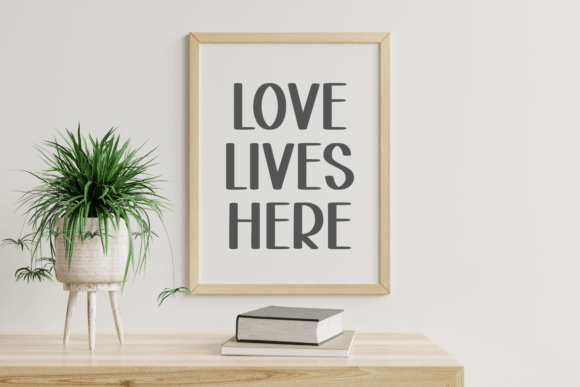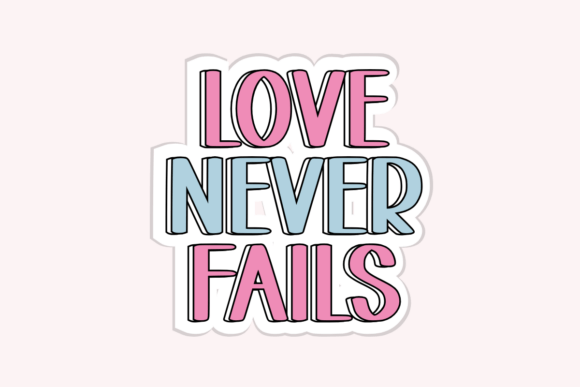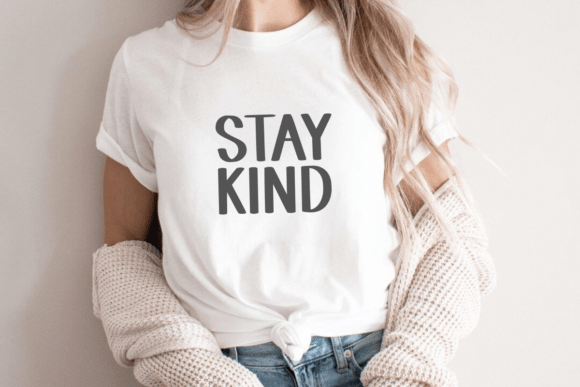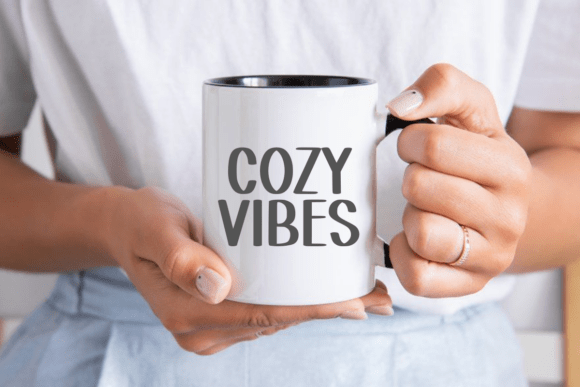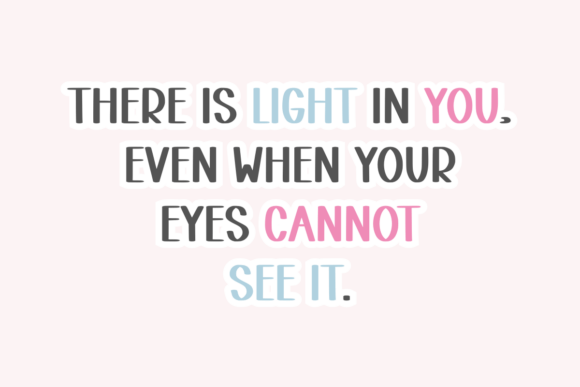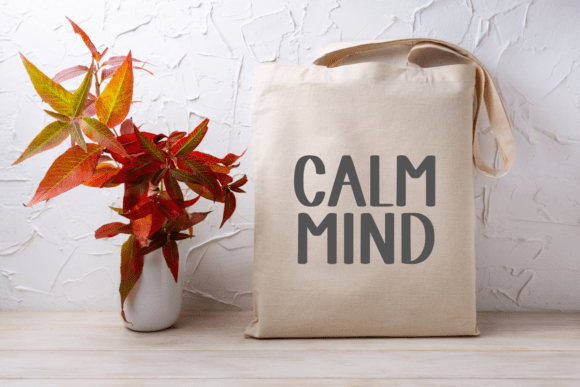
Introduction to Friday Planner Font
Friday Planner is a cute sans serif handwriting font designed with a soft, friendly, and natural look.
This font brings a warm handcrafted feeling that works beautifully for craft projects, planners, stickers, kids’ worksheets, classroom printables, and DIY designs Its simple strokes and smooth curves make it easy to cut using Cricut and Silhouette, and perfect for crafting moms who love adorable handwritten styles.